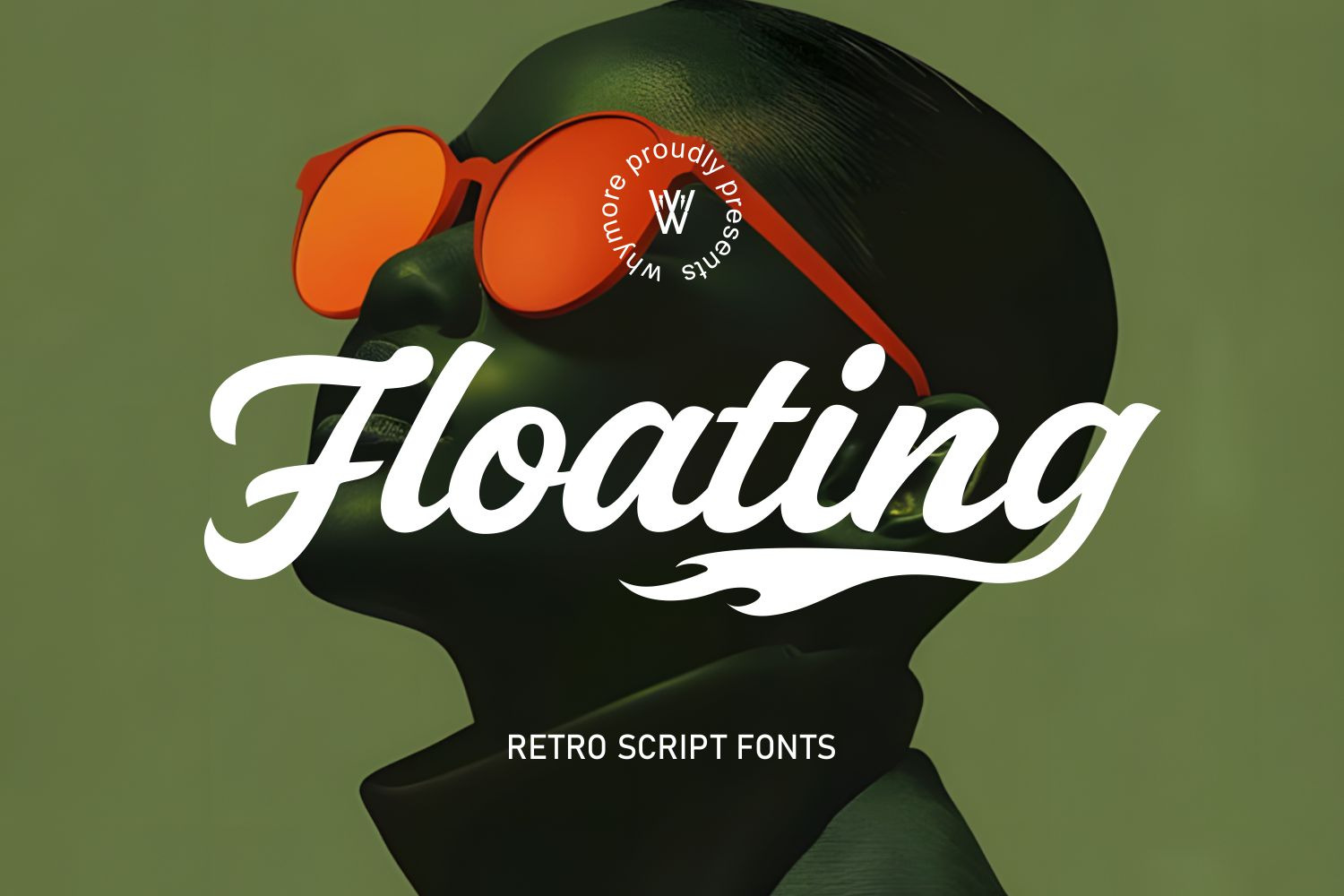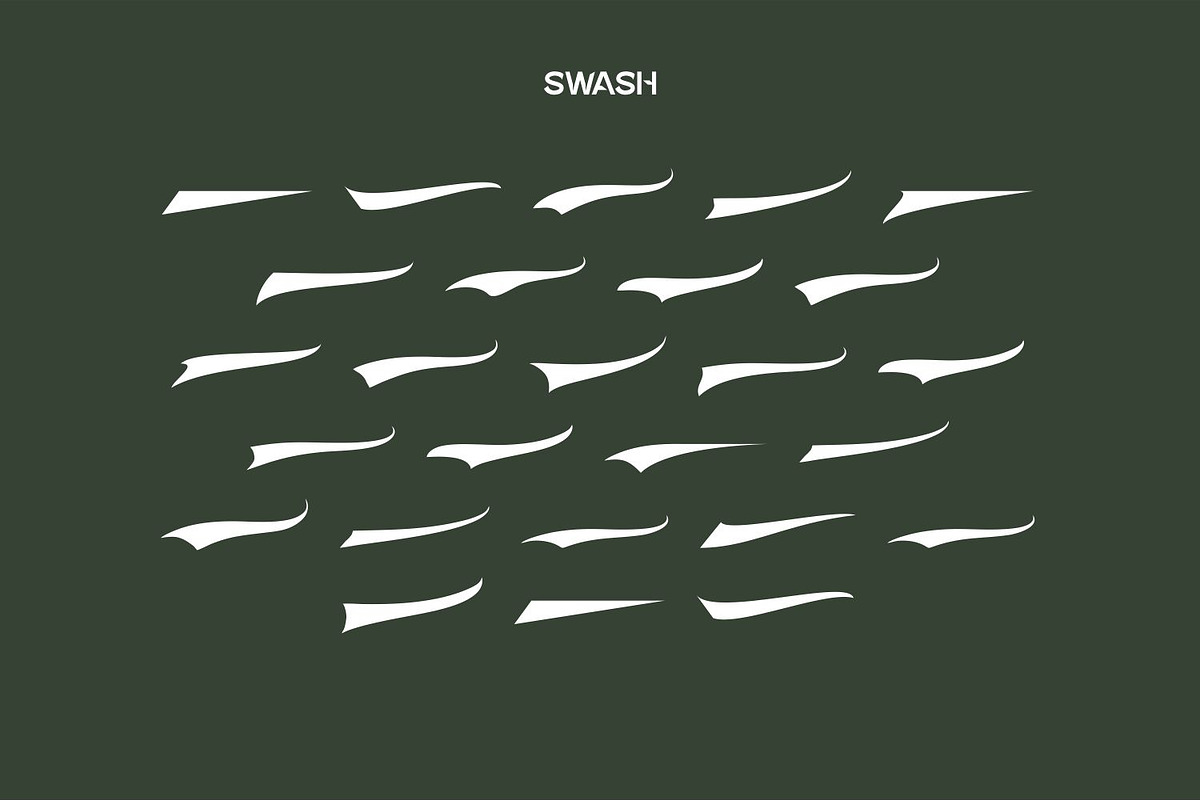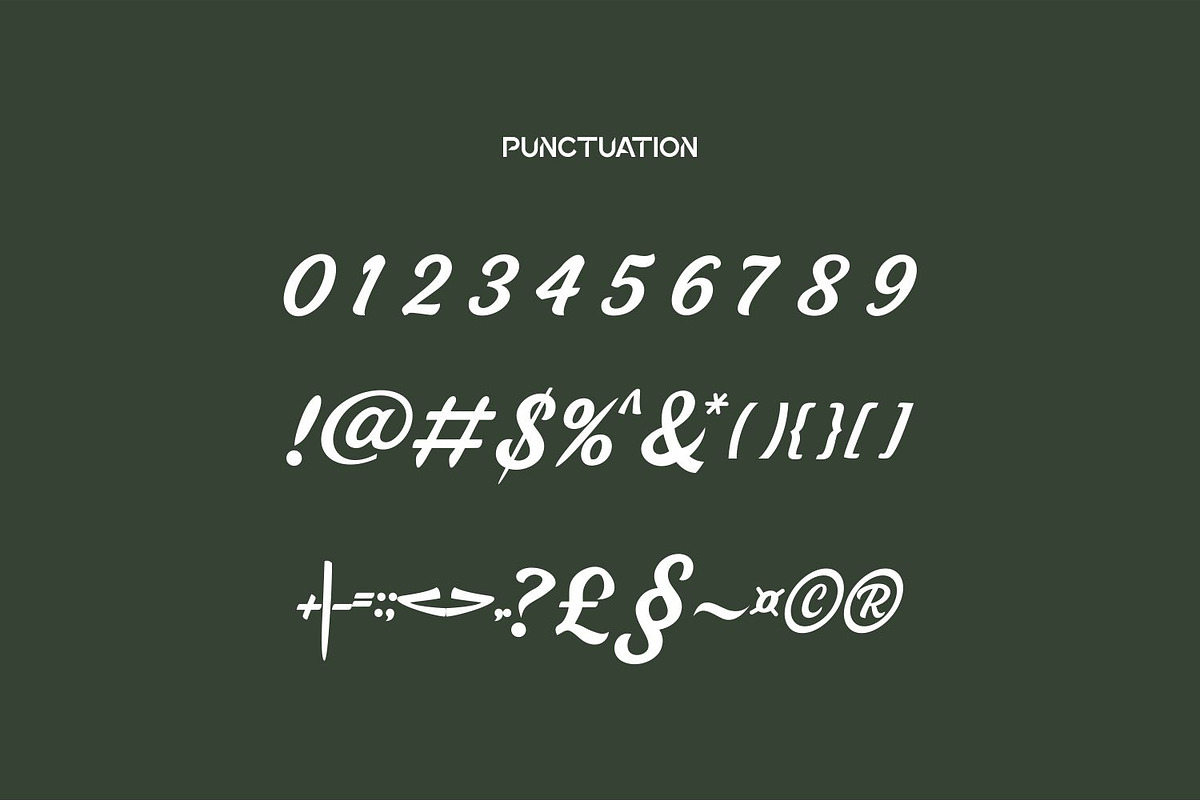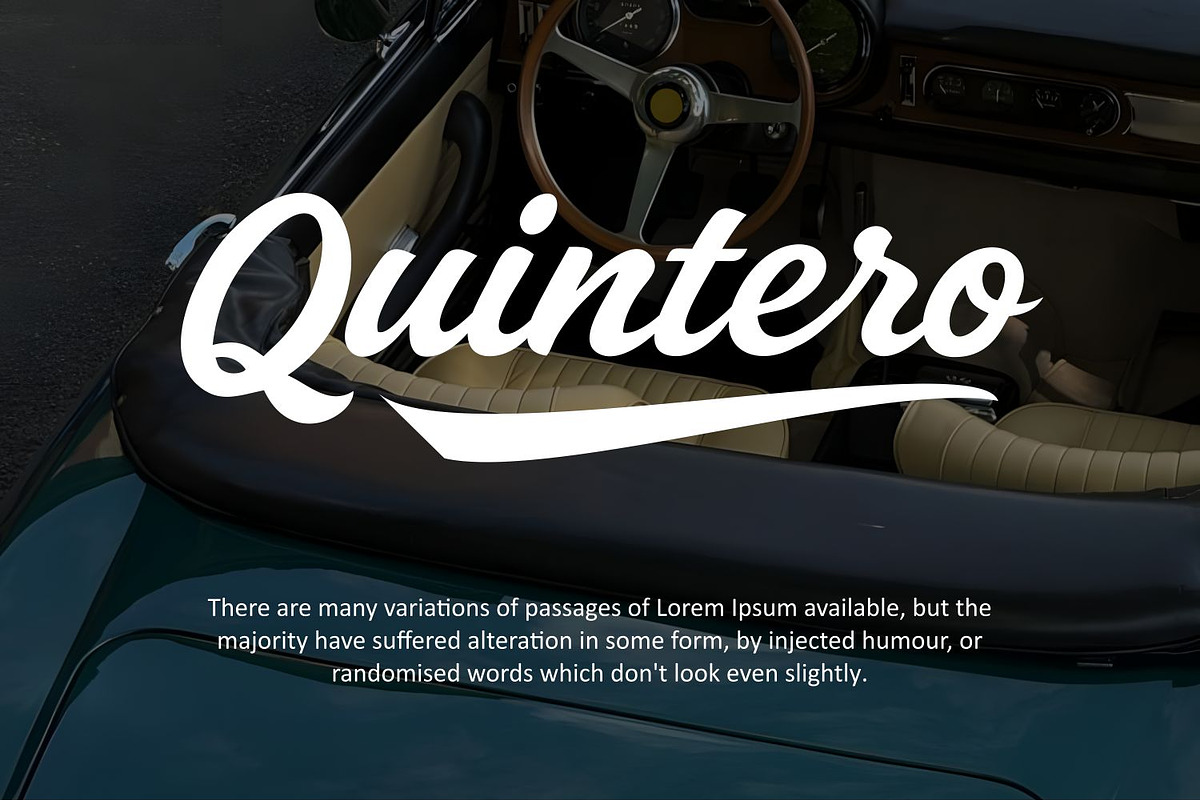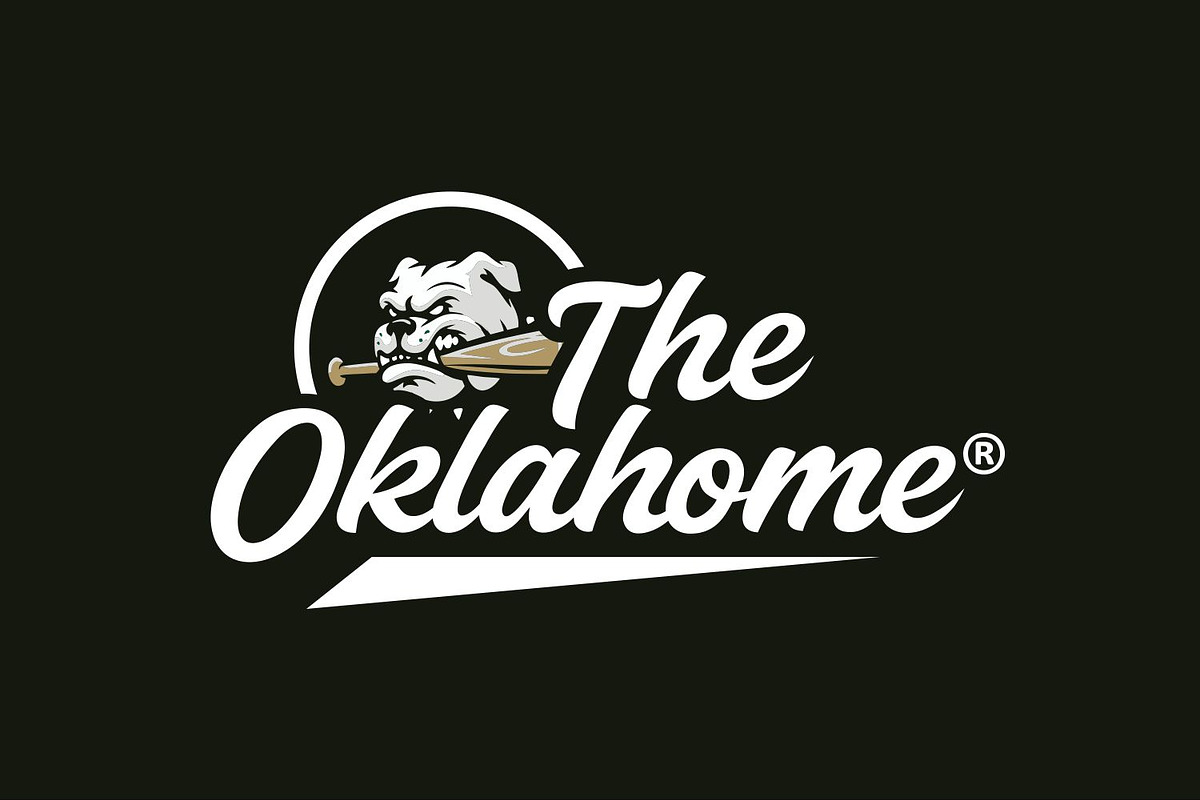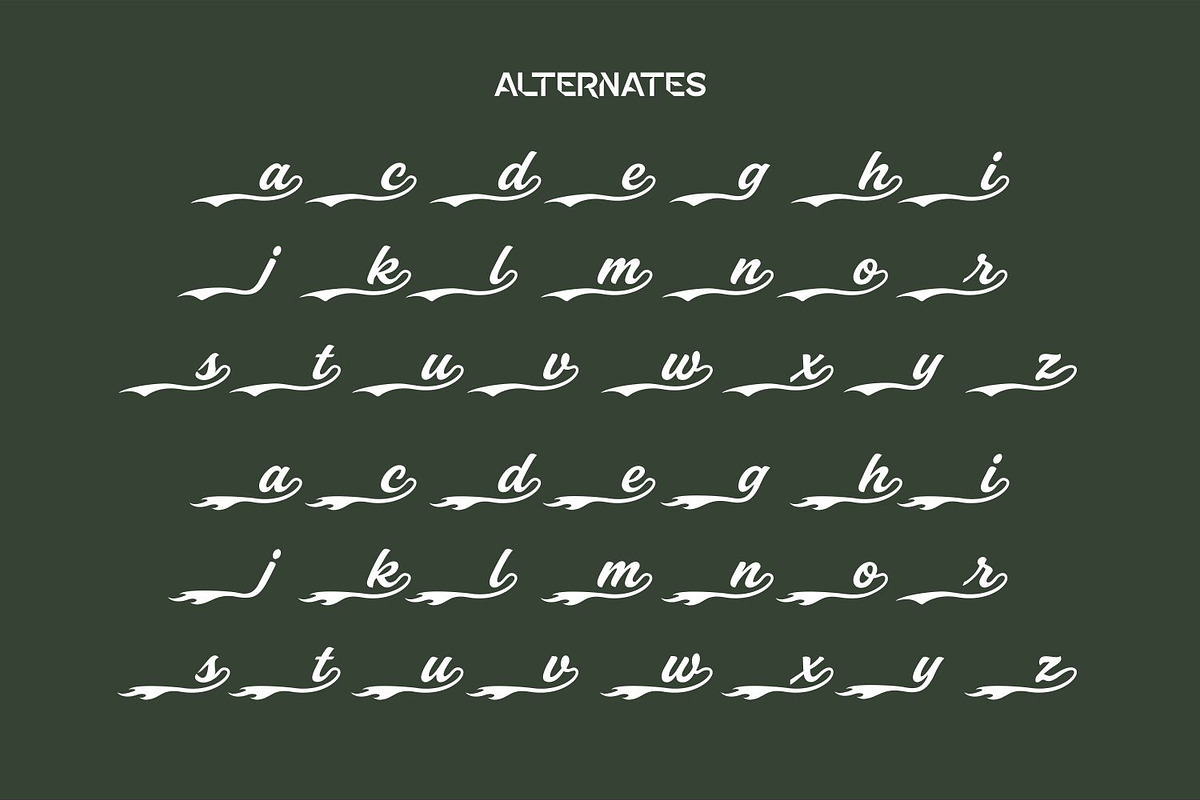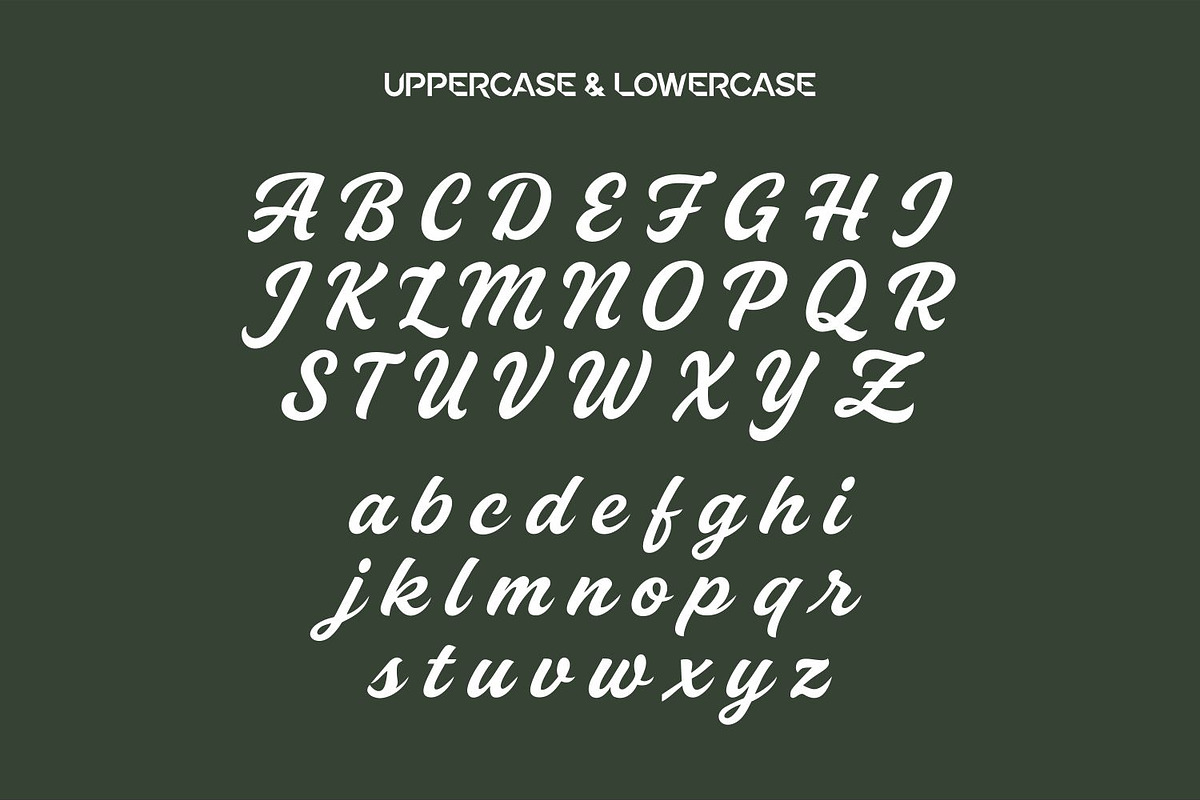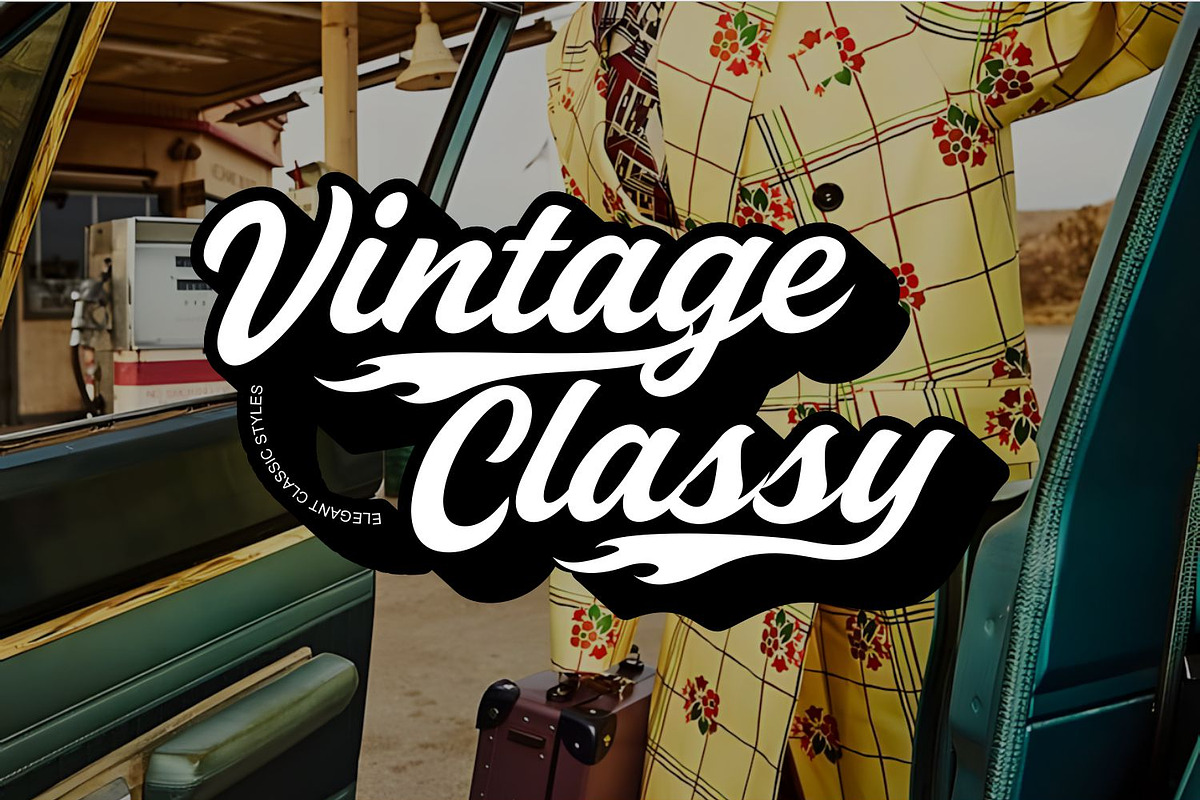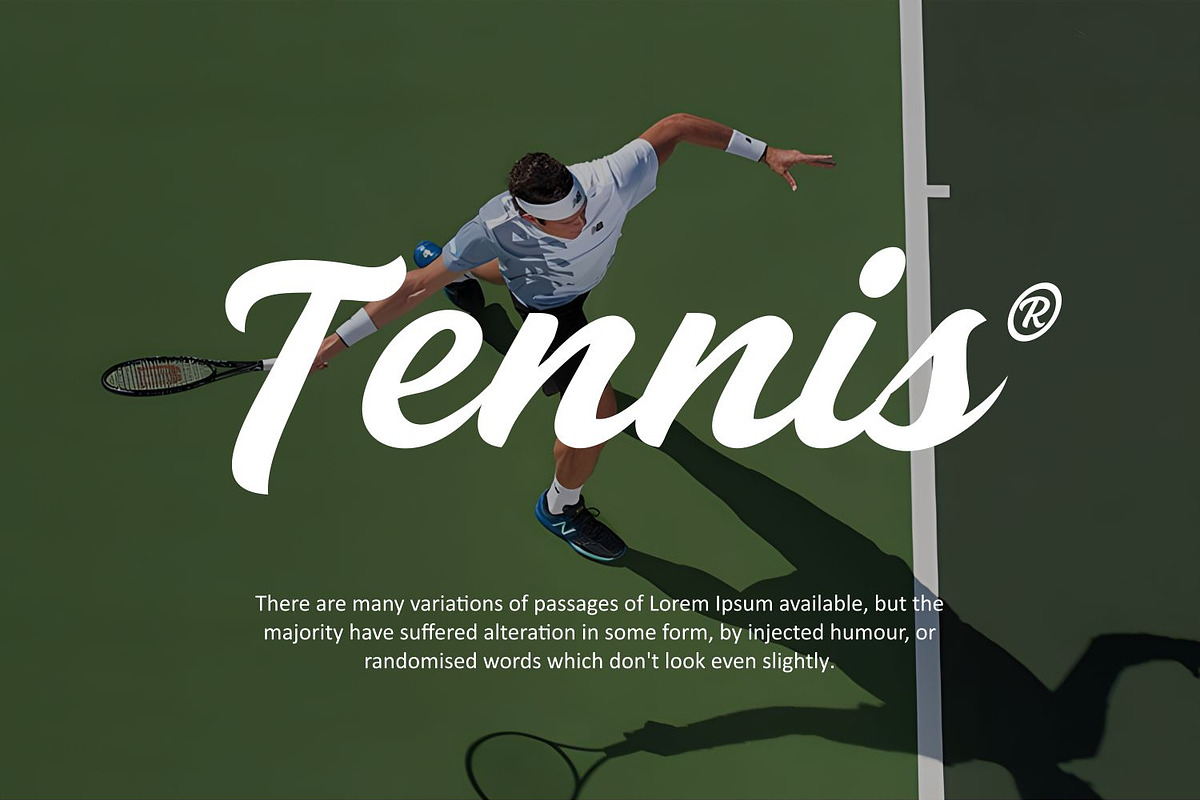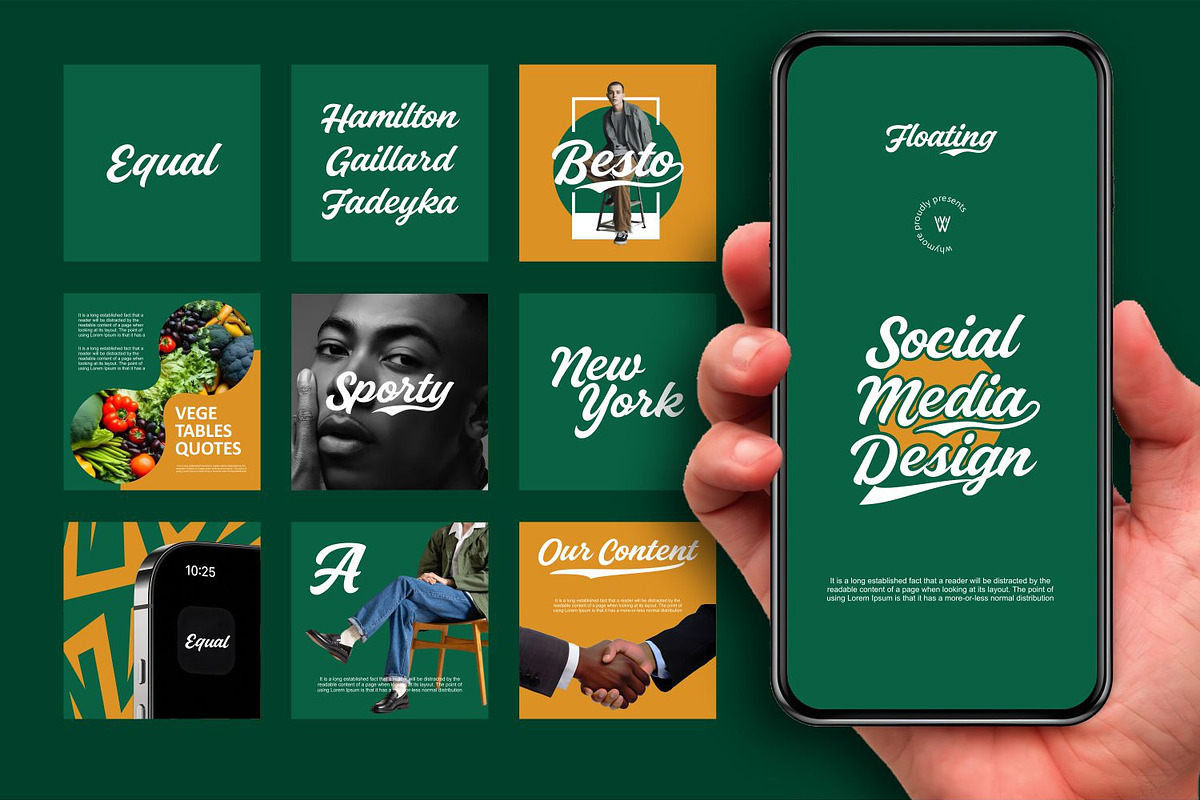
Floating Retro Script Vintage Font
Bring bold personality and timeless style to your designs with Floating Retro Script Font. Inspired by Chicano lettering, vintage signage, and retro script tattoos, this font is crafted for creatives who want their work to stand out with attitude, artistry, and authenticity. Why You Need This Font
Instant Character & Impact – Every curve and stroke delivers a strong visual statement that turns ordinary text into a memorable brand asset.
Versatile for Multiple Styles – Whether you’re creating tattoo studio logos, hip hop merchandise, lowrider graphics, or gangster rap album covers, this font adapts to your vision.
Handcrafted Lettering Quality – Designed with precise attention to detail, giving your projects the exclusive feel of custom hand lettering.
Perfect For Logo design for studios, brands, or streetwear Hip hop, rap, and urban culture merchandise Lowrider, classic car culture graphics Custom lettering, branding, and vintage-inspired signage
With Floating Retro Script, you’re not just using a font — you’re embracing a visual identity that’s bold, stylish, and unforgettable.